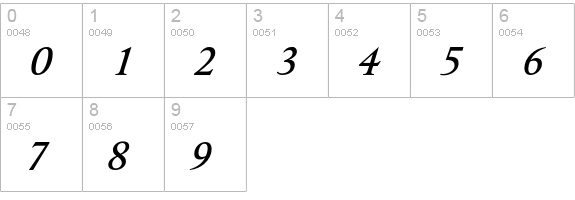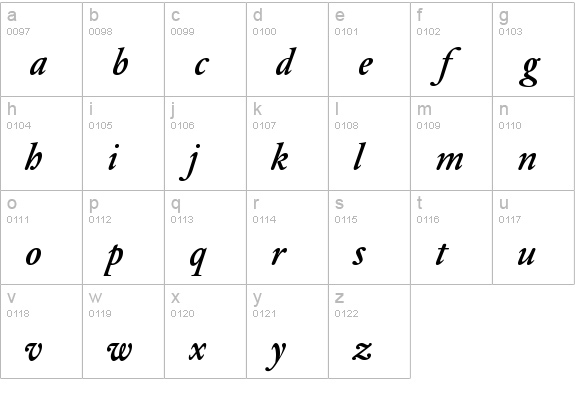
DTLElzevirTMedium-Italic Font Details
DTLElzevirTMedium-Italic is a distinctive, italic variant in the DTLElzevirTMedium typeface family \xE2\x80\x94 well suited to design and typography projects.
The DTLElzevirTMedium-Italic font is a stunning and elegant typeface that exudes sophistication and style. Its sleek and modern design is perfect for adding a touch of class to any project. The italic style adds a subtle flair, making it suitable for use in a variety of design applications. What sets this font apart is that it is available for free download at FontsMarket.com. This means you can easily access this high-quality typeface without any cost, making it a valuable addition to your font collection. Whether you're working on a branding project, a website design, or any other creative endeavor, the DTLElzevirTMedium-Italic font is sure to elevate your work with its timeless appeal.